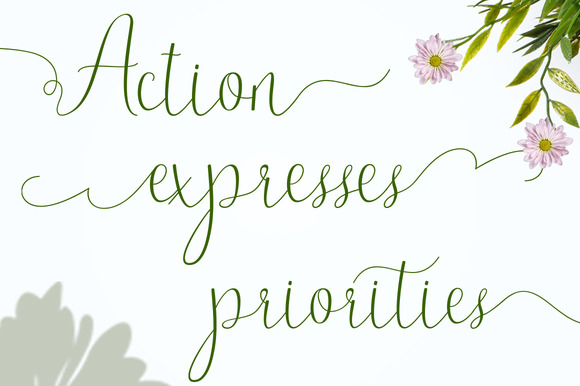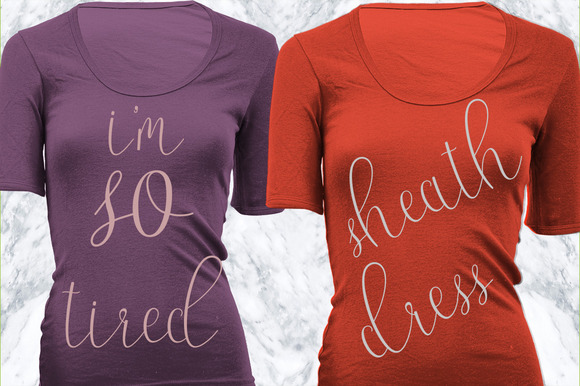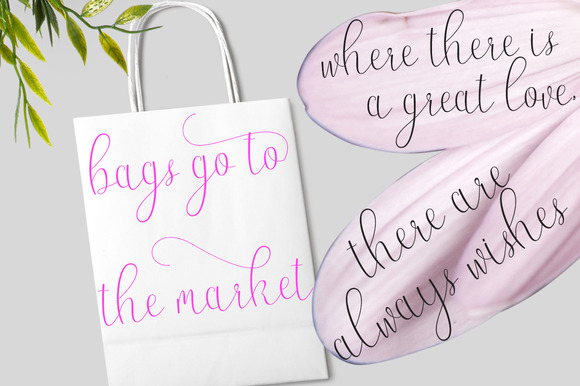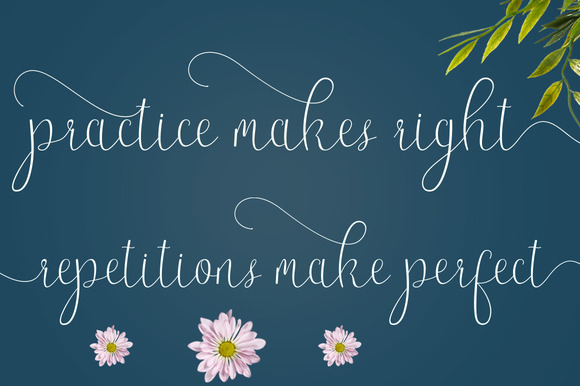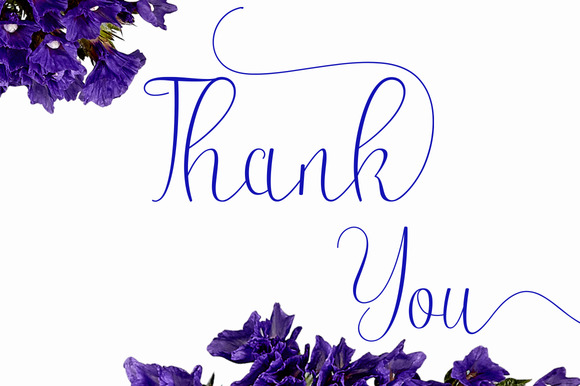
Gourami Font
About Gourami Font
Gourami is a stunning handwritten font created by Jhoen Studio.
This elegant font features:
Standard Ligatures
Stylistic Alternates
Contextual Alternates
Stylistic Sets